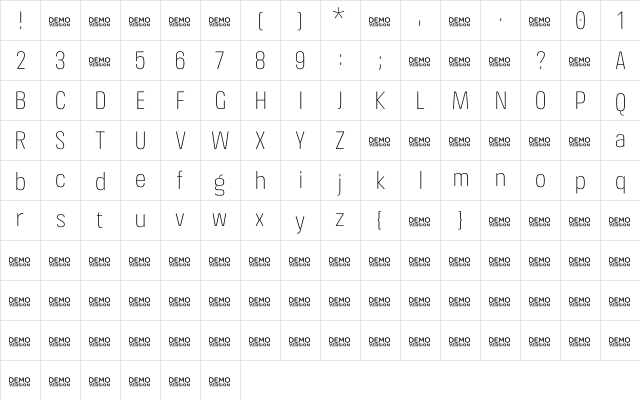
Crossfit Demo Thin
Design Context for Crossfit Demo Typeface
Crossfit Demo offers clean, dependable letterforms without strong stylistic allegiance, making it a practical choice for designers who need flexibility. Its slender proportions lend an understated elegance to any composition.